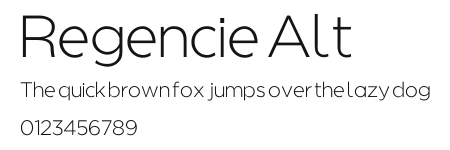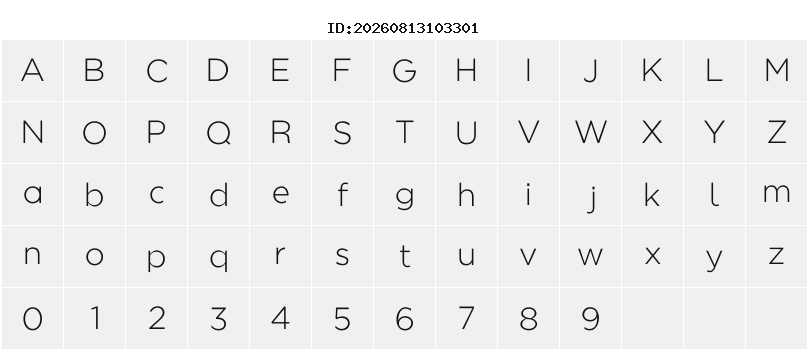
• Font Name: Regencie Alt
• Font Style: LightAlt
• Full Font Name: Regencie Light Alt
• Copyright: Font made by Alvaro Thomaz, inspired by Gotham, Avenir, Futura and Proxima Nova
About Regencie Alt.ttf
Regencie Alt.ttf is a modern, elegant sans-serif font designed for ultimate readability and visual harmony. Perfect for branding, headlines, web design, and print materials.